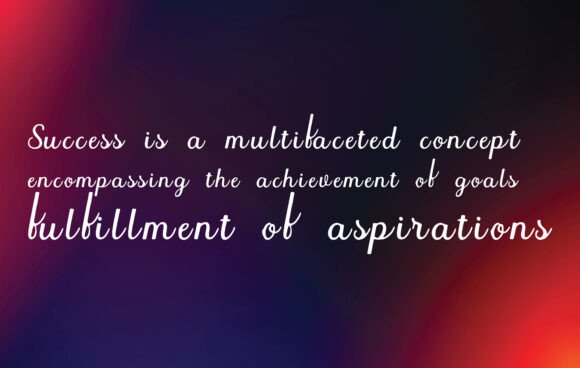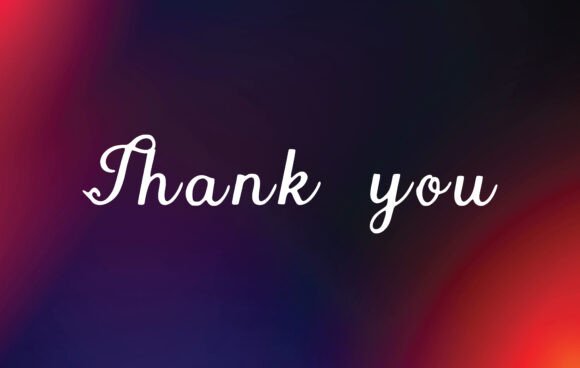
Erik Font: Elevate Your Designs with a Lovely Handwritten Style
Are you looking for a font that can add a personal touch to your designs? Look no further than Erik Font, a beautiful handwritten font that can take your creative ideas to the next level. With its unique and elegant style, Erik Font is perfect for designers and crafters who want to create eye-catching logos, branding, and quotes that stand out from the crowd.
What Makes Erik Font Special?
Erik Font is a lovely and beautiful handwritten font that has been designed to help you create stunning designs. Its elegant and flowing style makes it perfect for a wide range of design projects, from logos and branding to quotes and social media graphics. Whether you’re a professional designer or a crafter, Erik Font has the potential to elevate your designs and help you achieve your creative goals.
Key Features of Erik Font
- Handwritten Style: Erik Font has a unique handwritten style that adds a personal touch to your designs.
- Elegant and Flowing: The font has an elegant and flowing style that makes it perfect for creating beautiful designs.
- Versatile: Erik Font is versatile and can be used for a wide range of design projects, from logos and branding to quotes and social media graphics.
- Easy to Read: The font is easy to read, making it perfect for creating designs that need to be clear and concise.
Why Choose Erik Font?
There are many reasons why Erik Font is a great choice for designers and crafters. Here are a few:
- Unique Style: Erik Font has a unique style that sets it apart from other fonts.
- High-Quality: Erik Font is a high-quality font that is designed to produce stunning results.
Design Ideas Using Erik Font
Erik Font is a versatile font that can be used for a wide range of design projects. Here are a few ideas to get you started:
- Logos: Use Erik Font to create a unique and memorable logo for your business.
- Branding: Use Erik Font to create a consistent brand identity across all of your marketing materials.
- Quotes: Use Erik Font to create inspiring and motivational quotes for social media.
- Social Media Graphics: Use Erik Font to create eye-catching social media graphics that stand out from the crowd.
Here are a few tips and tricks to help you get the most out of Erik Font:
- Experiment with Different Sizes: Experiment with different font sizes to find the one that works best for your design.
- Pair with Other Fonts: Pair Erik Font with other fonts to create a unique and interesting design.
- Use on Different Backgrounds: Use Erik Font on different backgrounds to create a design that stands out.
Erik Font is a beautiful handwritten font that has the potential to take your creative ideas to the highest level. With its unique and elegant style, Erik Font is perfect for designers and crafters who want to create eye-catching logos, branding, and quotes. Whether you’re a professional designer or a crafter, Erik Font is a great choice for anyone looking to add a personal touch to their designs.